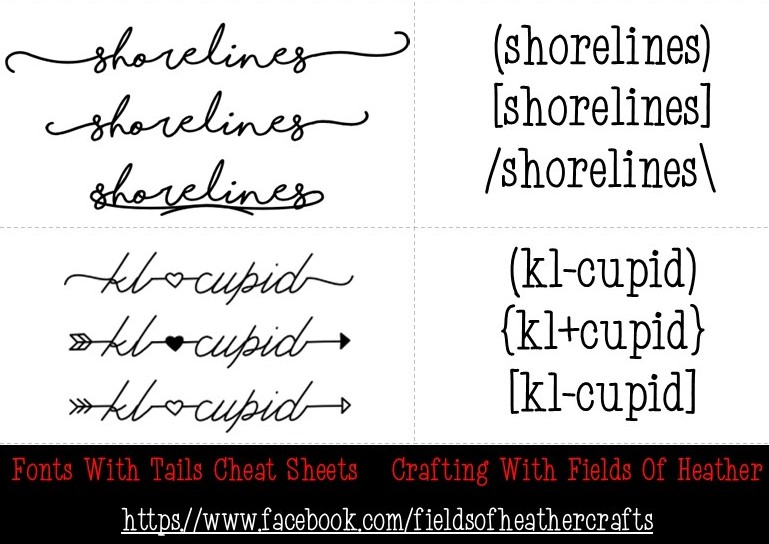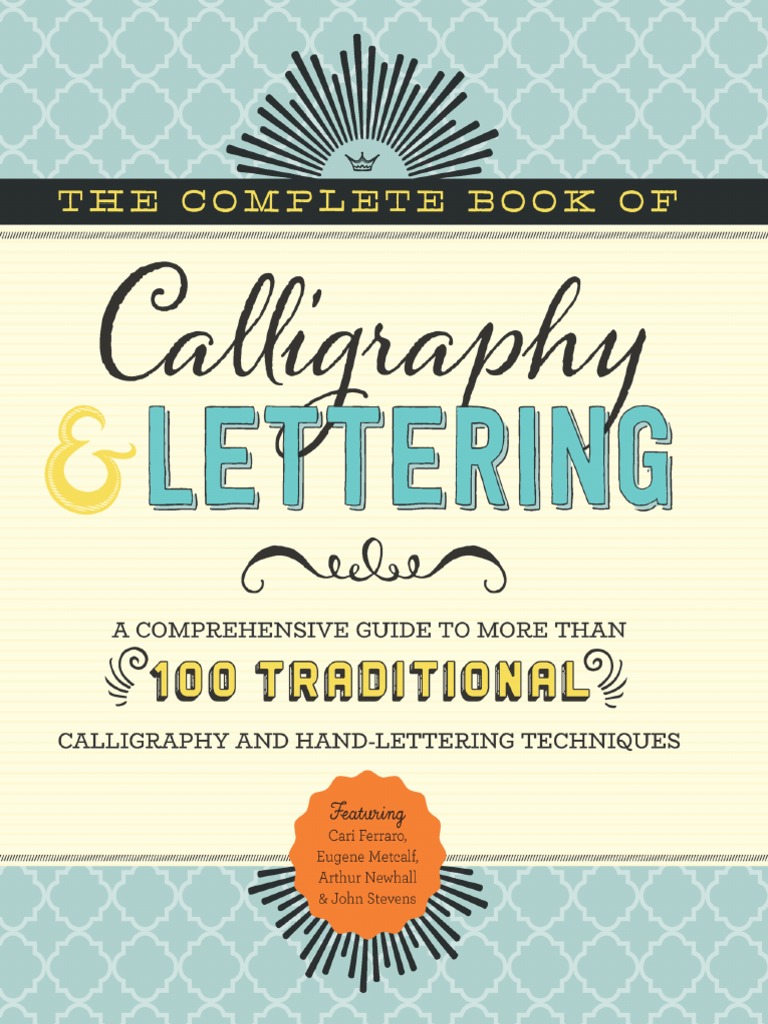
The height of calligraphy was reached in the middle age where monks developed the narrow writing style called gothic allowing more words to fit on a single line as paper was expensive at the time.
Calligraphy font book pdf. It usually involves a nibbed pen or brush. Calligraphy is an ancient writing technique using flat edged pens to create artistic lettering using thick and thin lines depending on the direction of the stroke. It is the best for logos branding wedding and quotes. It brings a beautiful and attractive typeface.
You can customize your experience with live font previews. Hand lettering calligraphy book 160 sheet pad calligraphy pal. Author fili draws upon the more sophisticated and stylish fonts used in the 1800s and into the mid twentieth century that many professional graphic artists might have long forgotten even existed. The writing is readable but is usually extravagant and embellished with flourishes.
Hand lettering for everyone by cristina vanko. Above is an example of the first page of what the calligraphy practice sheet looks like. However one of the most unforgettable things that i have had the good fortune to live was when i visited boston usa in 2010 where the most important calligraphy conference was held. 48 out of 5 stars 62.
Kaithryn is a modern calligraphy font. Make your way through learning 5 different hand lettering styles that take you from basic fonts all the way up to some more challenging and intricate fonts. Calligraphy is an artistic writing style where the pressure is varied to create thick and thin lines all in a single stroke. Made for any professional project branding.
For those who want to use their stylish calligraphy for product packaging this is the book. These modern calligraphy practice sheets are designed to be completed with any brush pen or even crayola markers. 50 out of 5 stars 2. Some publications projects books and magazines from dierent countries around the world such as germany spain england and the states.